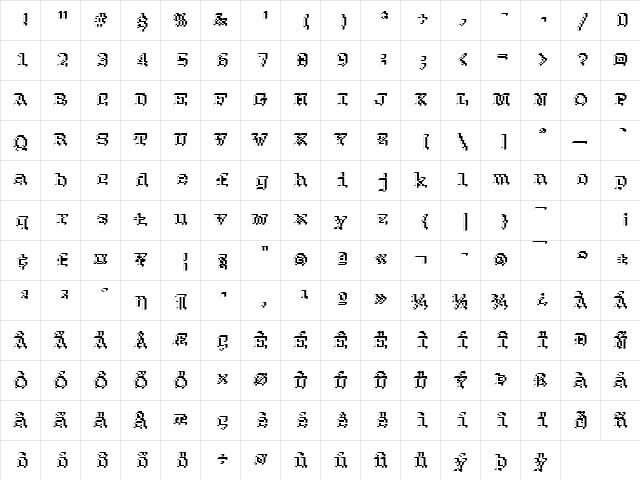
Rough25 Becker Regular Font Preview
Rough25 Becker Regular
Design Context for Rough25 Becker Typeface
Rough25 Becker embraces imperfection — its rough, textured character adds raw authenticity to designs that want to feel lived-in and unconventional.
Suited to punk-influenced zines, underground music branding, streetwear, and raw, anti-corporate design.